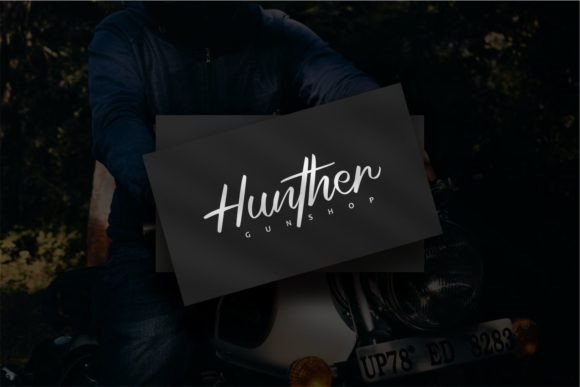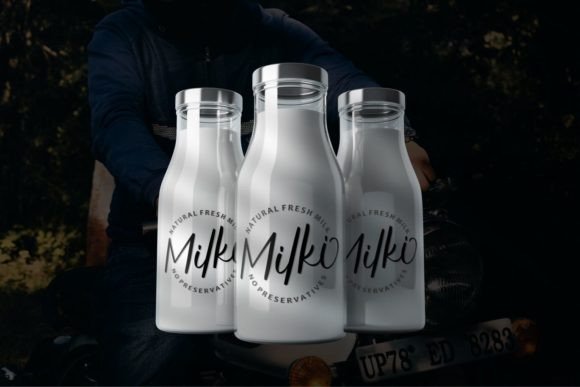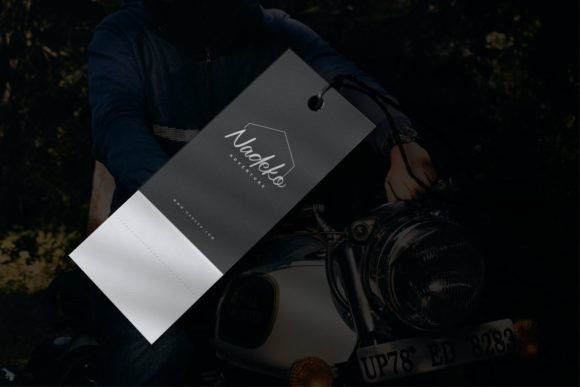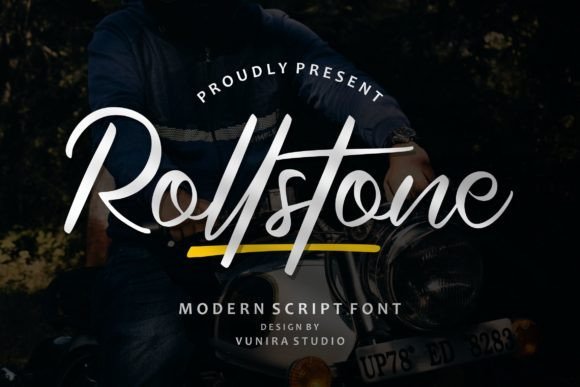
Introduction to Rollstone Font
Rollstone is a gorgeous and bold handwritten font, crafted to give your headlines and logotype projects a stylish touch.
This font reads as strong, confident, and dynamic and can add tons of nostalgic character to your designs .
Why Choose Rollstone Font?
Rollstone Font offers exceptional quality and versatility, making it a valuable addition to your design toolkit. Whether you’re creating for personal projects or commercial use, Rollstone Font delivers professional results.